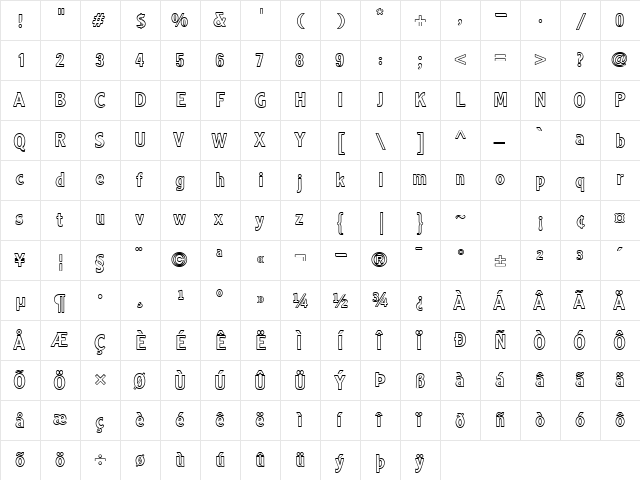
Ahmed LT Outline Regular Regular
| Foundry | Linotype GmbH |
| Designer | Ahmed Ali |
Design Context for Ahmed LT Outline Regular Typeface
Ahmed LT Outline Regular brings ornamental detail and strong personality to headlines and identities, where visual impact matters more than quiet functionality. Its slender proportions lend an understated elegance to any composition.
Font Pairing: Pair with a clean neutral sans-serif for body copy to let Ahmed LT Outline Regular's character lead without overwhelming the composition.
Pro Tip: Use Ahmed LT Outline Regular exclusively at display sizes — it was designed to be seen, not read at length. Let a neutral companion handle body copy.